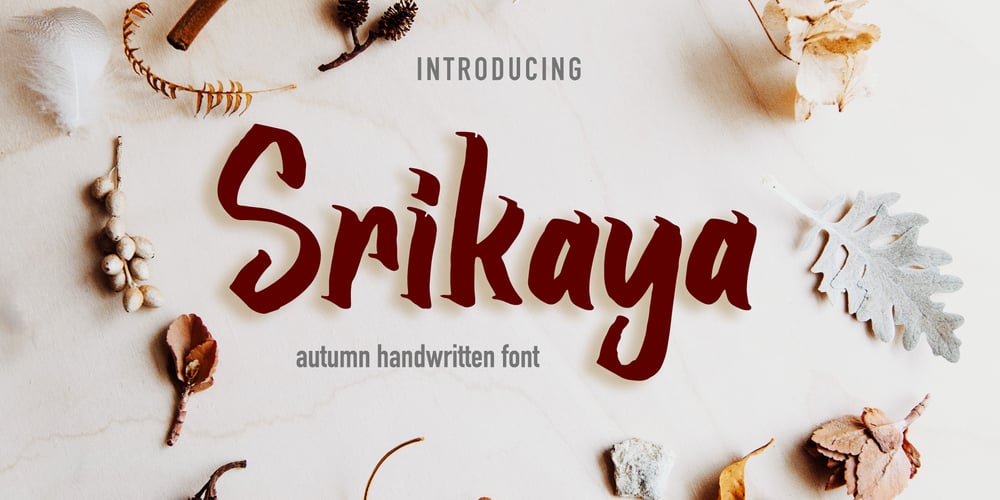
Srikaya Font Family was designed by Yean Aguste and published by HandletterYean. Srikaya contains 4 styles and family package options. Srikaya is a display typeface with a cheerful vibe and autumn nuance. Use it for any creative project in need of a whimsical vibe.